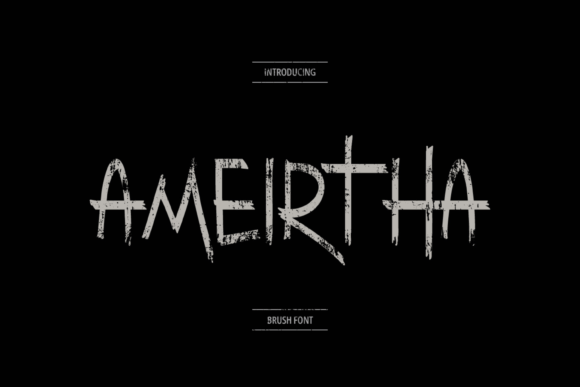
The Ameirtha Font: A Seductive Addition to Your Design Arsenal
Ameirtha is a cool and dark brush display font that’s designed to seduce your audience with its style and form. In this article, I’ll share my honest review of the font, provide a practical guide on how to use it on different platforms, and explore some similar fonts you might want to consider.
My Honest Review of Ameirtha Font
- ✨ Unique and edgy design: Ameirtha has a distinctive, hand-brushed feel that’s perfect for making a statement.
- ✅ Highly legible: Despite its bold and dark style, Ameirtha is surprisingly easy to read, even at smaller sizes.
- 💥 Versatile: This font can be used for a wide range of projects, from logos and branding to posters and social media graphics.
While Ameirtha is an amazing font, there are a few things to keep in mind:
- 🤔 Limited use for body text: Due to its bold and dark style, Ameirtha might not be the best choice for longer blocks of text.
- ⚠️ Requires careful kerning: As with any font, you’ll need to pay attention to kerning to ensure that your text looks its best.
The Backstory Behind Ameirtha Font
Ameirtha was designed by a team of creatives who wanted to create a font that would capture the essence of dark, edgy style. Inspired by the world of art and design, they crafted a font that’s both bold and beautiful. While the designer’s true identity remains a mystery, their passion and dedication to their craft are evident in every detail of the font.
Q: What type of projects is Ameirtha best suited for?
A: Ameirtha is perfect for projects that require a bold, eye-catching font, such as logos, branding, posters, and social media graphics.
Q: Can I use Ameirtha for body text?
A: While Ameirtha is highly legible, it’s not the best choice for longer blocks of text. It’s better suited for headings and titles.